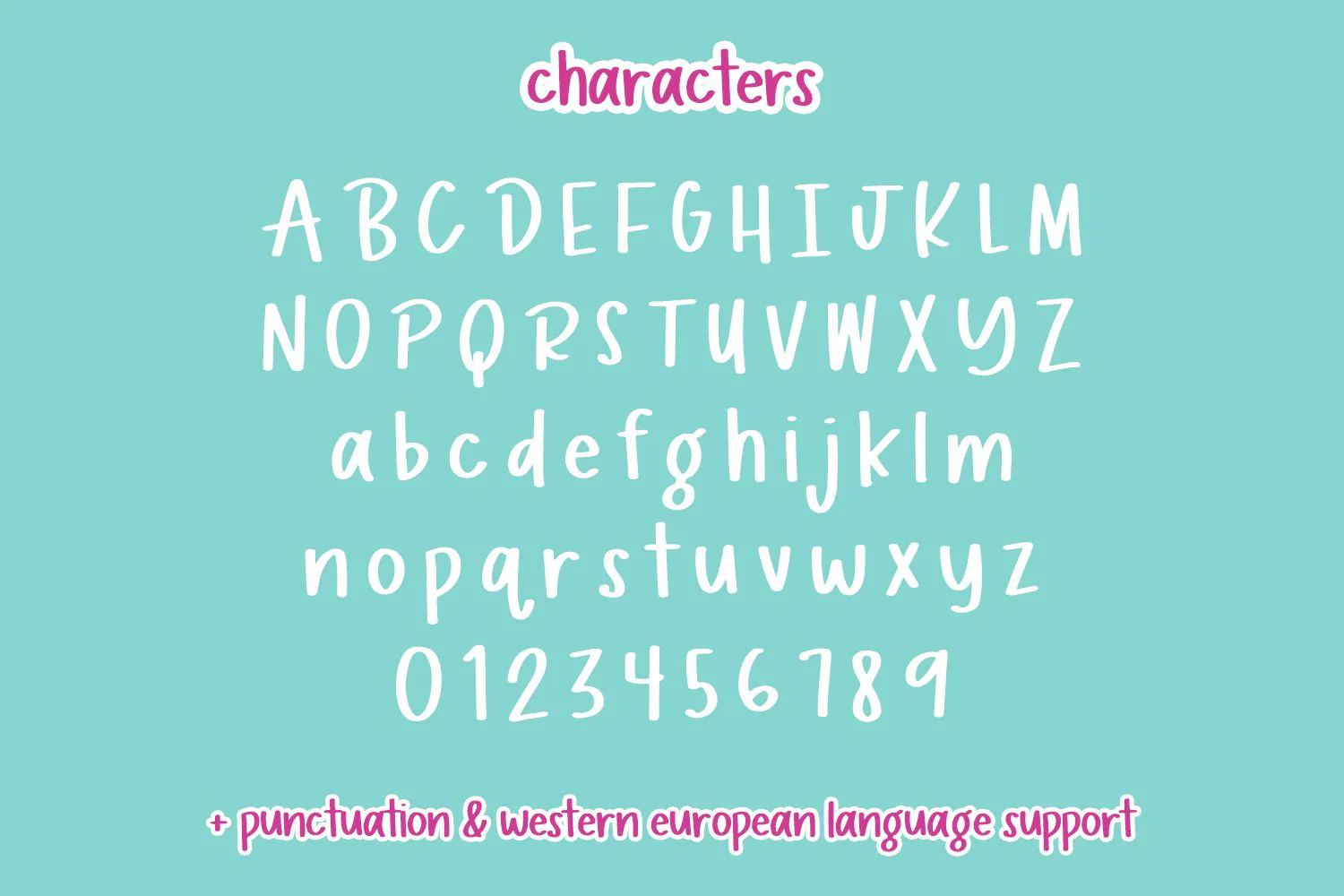
Introducing Candy Queen, a cute, clean sans font perfect for crafting, and whimsical child-centric projects. Its legibility makes it perfect for young children for school & classroom projects.
Candy Queen is best for:
- logos + branding for kid-centric brands
- design items like shirts, coffee mugs, & more
- Cricut and Silhouette projects
- other crafting projects
- school or classroom projects